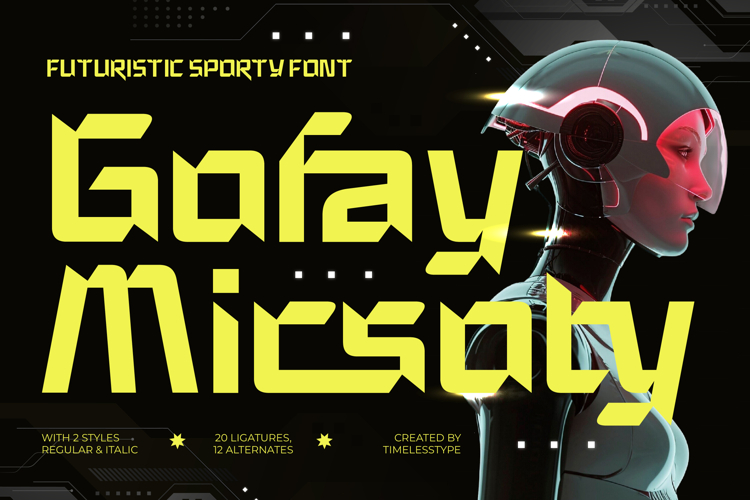
Gofay Micsoty - Futuristic Sporty Font
Command attention instantly with the powerful geometry of Font Gofay Micsoty - Futuristic Sporty Font Sans Serif. This typeface is engineered for impact, blending heavy, condensed weight with razor-sharp terminals that define its signature aesthetic. Its construction evokes speed, technology, and dynamic energy, making it the ultimate choice for projects that demand a bold statement. This is a display face built for maximum readability and visual punch at large sizes, ensuring your message cannot be ignored.
Unleash creative potential through a wealth of typographic features. Included within the family are two essential styles—Regular and Italic—alongside numerous stylistic alternates and over 20 unique ligatures, providing deep customization for headlines and logos. With its extensive multilingual support, Font Gofay Micsoty - Futuristic Sporty Font Sans Serif adapts seamlessly across global markets, making it incredibly versatile for international projects and diverse campaigns.